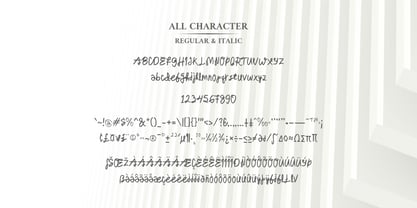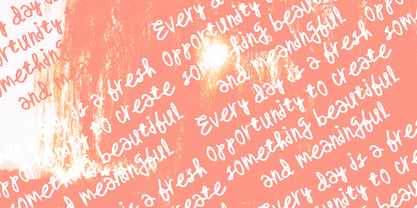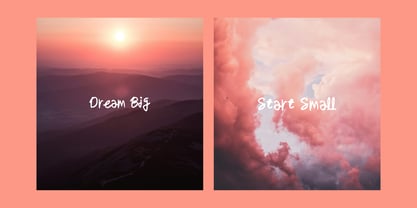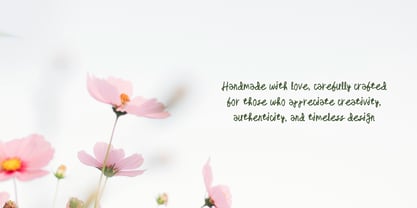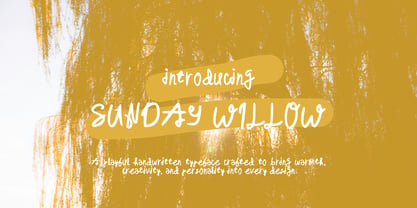
Sunday Willow
by Mei Suseno
The Sunday Willow Font Family was designed by Wahyu Eka Prasetya, Mei Suseno and published by Mei Suseno. Sunday Willow contains 2 styles and family package options. More about this family
Sunday Willow is a charming handwritten typeface that captures the warmth and spontaneity of natural handwriting. With its playful strokes, organic letterforms, and friendly personality, this font brings a relaxed and authentic feel to any creative project. Designed to evoke comfort, creativity, and human connection, Sunday Willow is perfect for branding, social media graphics, greeting cards, packaging, invitations, children's products, and lifestyle-themed designs.
Its handcrafted appearance adds a personal touch while maintaining excellent readability, making it suitable for both eye-catching headlines and expressive design elements. Whether you're creating a cozy brand identity or adding a whimsical accent to your artwork, Sunday Willow delivers a fresh and approachable aesthetic that feels effortlessly genuine.